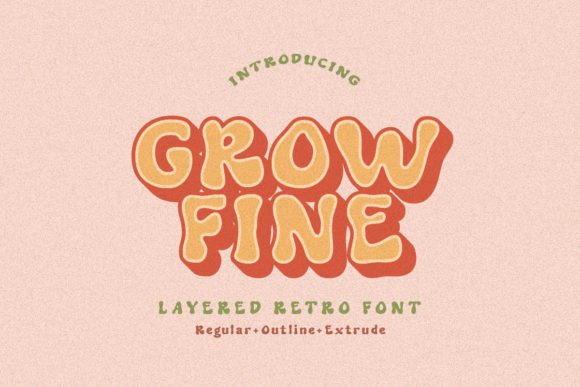
Introducing Grow Fine Font, the perfect choice for those seeking a bold and captivating font for their creative endeavors. This stunning display font, created by baletype, is sure to add a touch of elegance and personality to any project.
With its unique layered design, Grow Fine offers three different styles: regular, outline, and extrude. By combining these styles, you have the power to create eye-catching 3D text that will truly stand out. Imagine the impact this font could have on your posters, t-shirt designs, or any project in need of a retro vibe.
What sets Grow Fine apart from other fonts is its versatility. It's not just a font for Facebook bold, but a font that can be used across a plethora of projects. Its timeless appeal makes it suitable for a wide range of creative endeavors. Whether you're designing a vintage-inspired poster or a modern logo, Grow Fine has got you covered.
But that's not all - this font also supports multilingual characters, allowing you to cater to a global audience. No matter where your customers are located, Grow Fine will ensure that your message is communicated effectively.